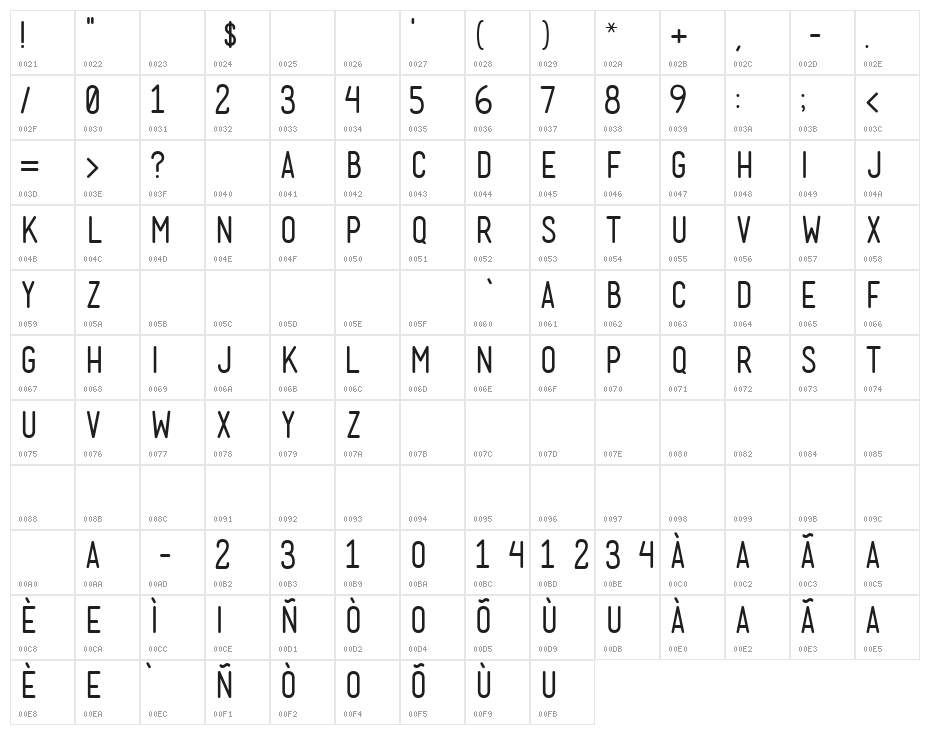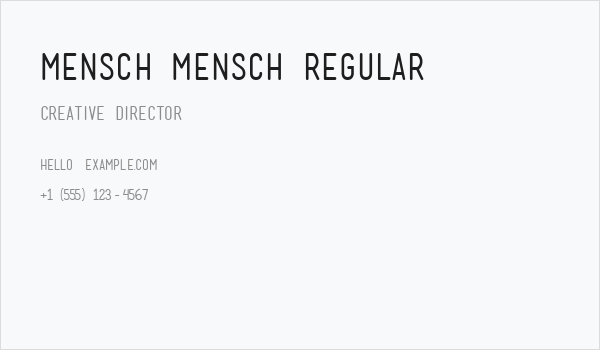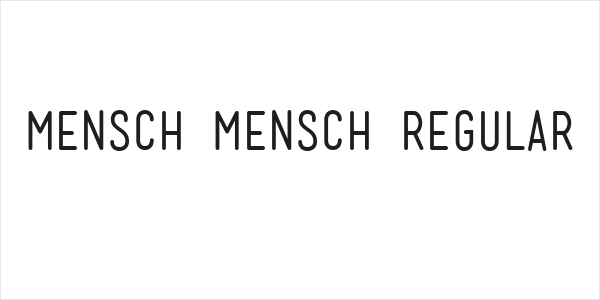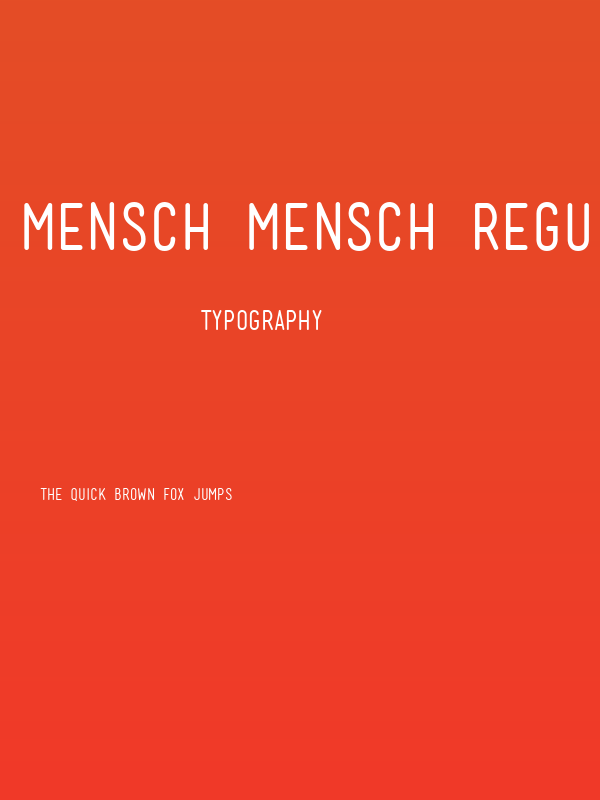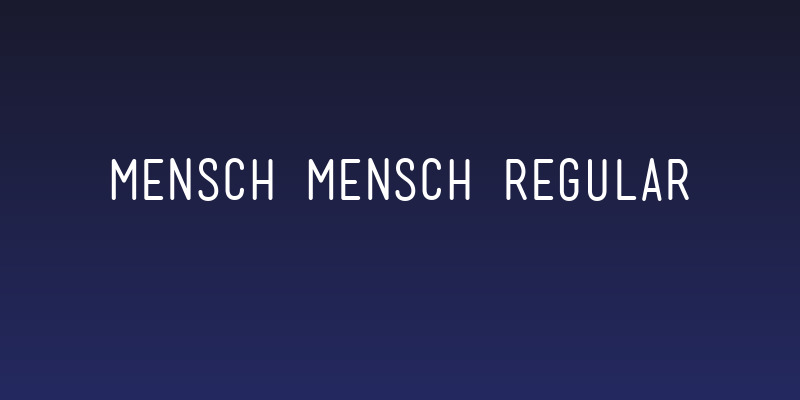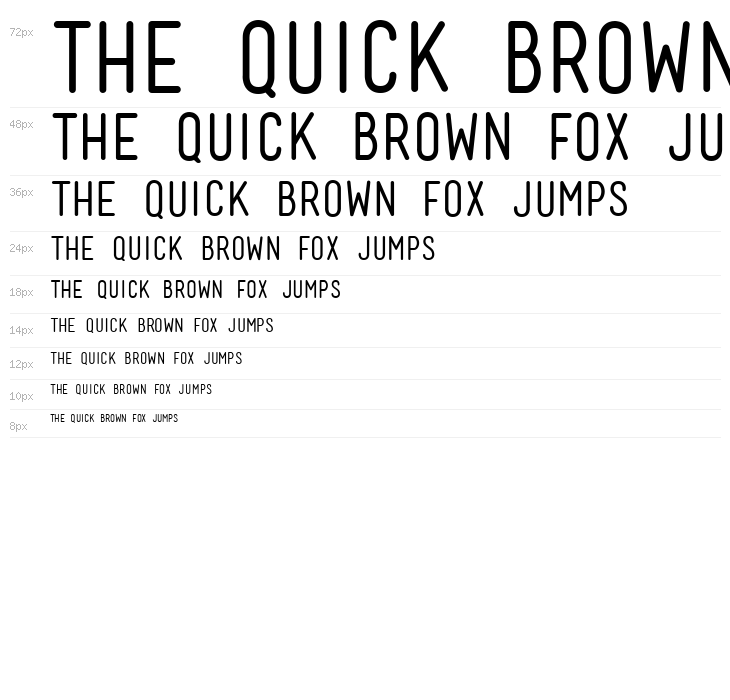
Mensch Mensch Regular Font
Mensch Mensch Regular Description
This font features a clean and modern sans-serif design with rounded edges, giving it a friendly and approachable appearance. The characters are evenly spaced, providing excellent readability. The uppercase and lowercase letters maintain a consistent style, with a slightly condensed form that adds to its contemporary look. The numerals are clear and distinct, making them suitable for various applications. Special characters are included, enhancing its versatility for different types of content. Overall, this font is well-suited for digital and print media, offering a professional yet inviting aesthetic.